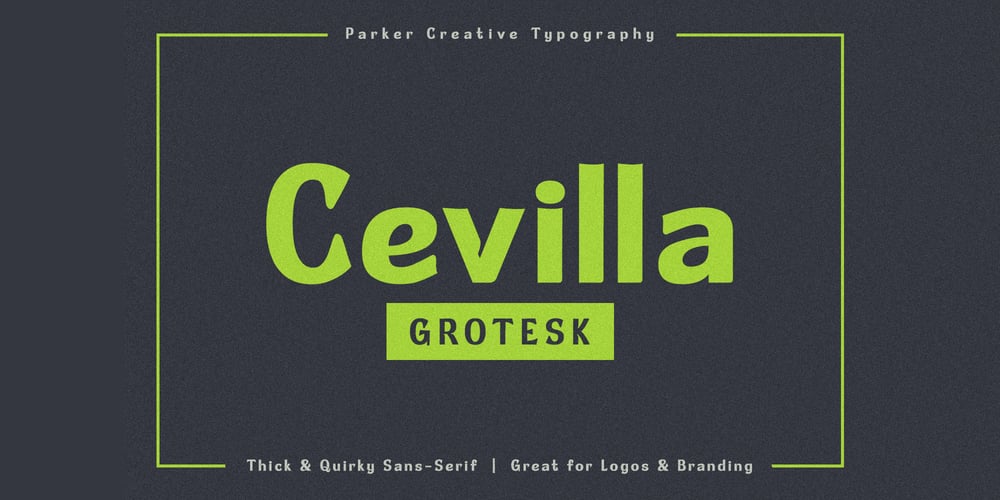
Cevilla Grotesk Font Family was designed by Alan Parker and published by Parker Creative. Cevilla Grotesk contains 1 styles and family package options. Cevilla Grotesk is a thick and quirky sans serif that is loaded with personality. Handcrafted for branding and logo projects, Cevilla Grotesk brings a unique aesthetic to any design thanks to its distinct embellishments and unique stylized cutouts found throughout the letterforms.Put those Google and Adobe Fonts away for your next branding project! With a striking bold appearance, Cevilla Grotesk is sure to bring a totally new look to anything from logos, websites, magazines and posters, to emails, social media posts and so much more!